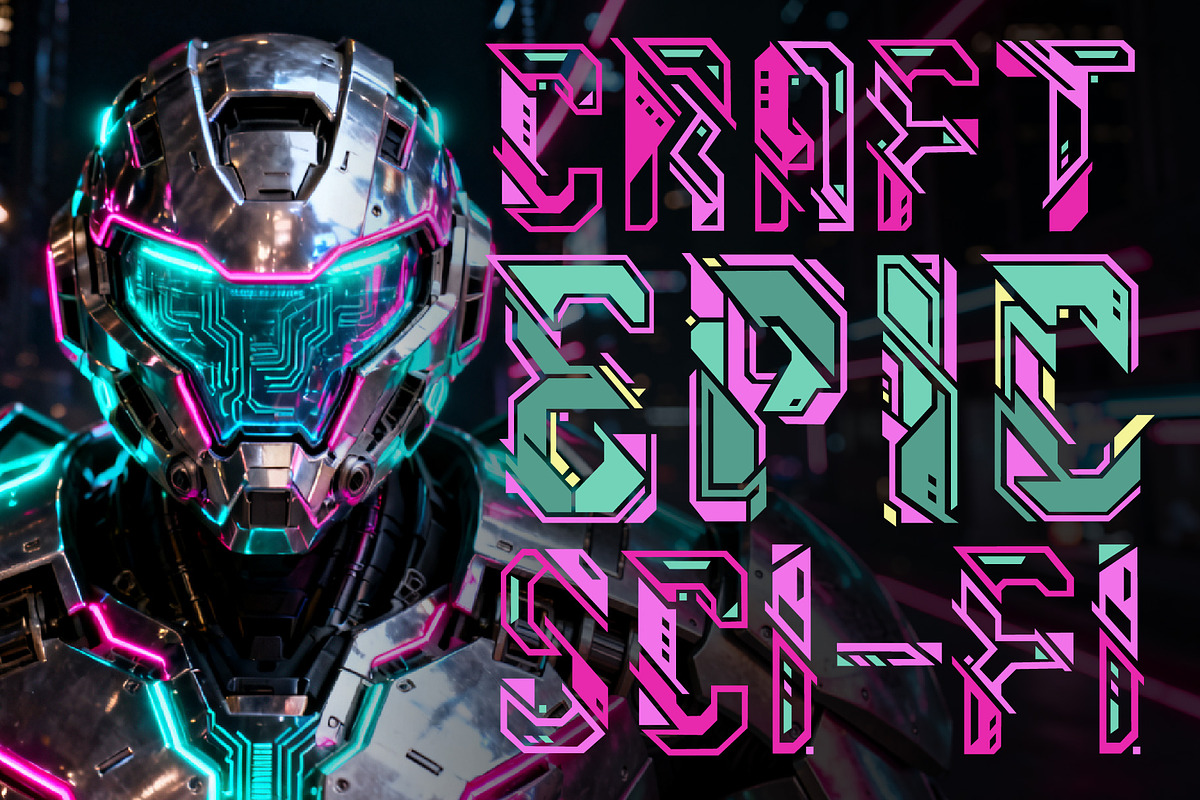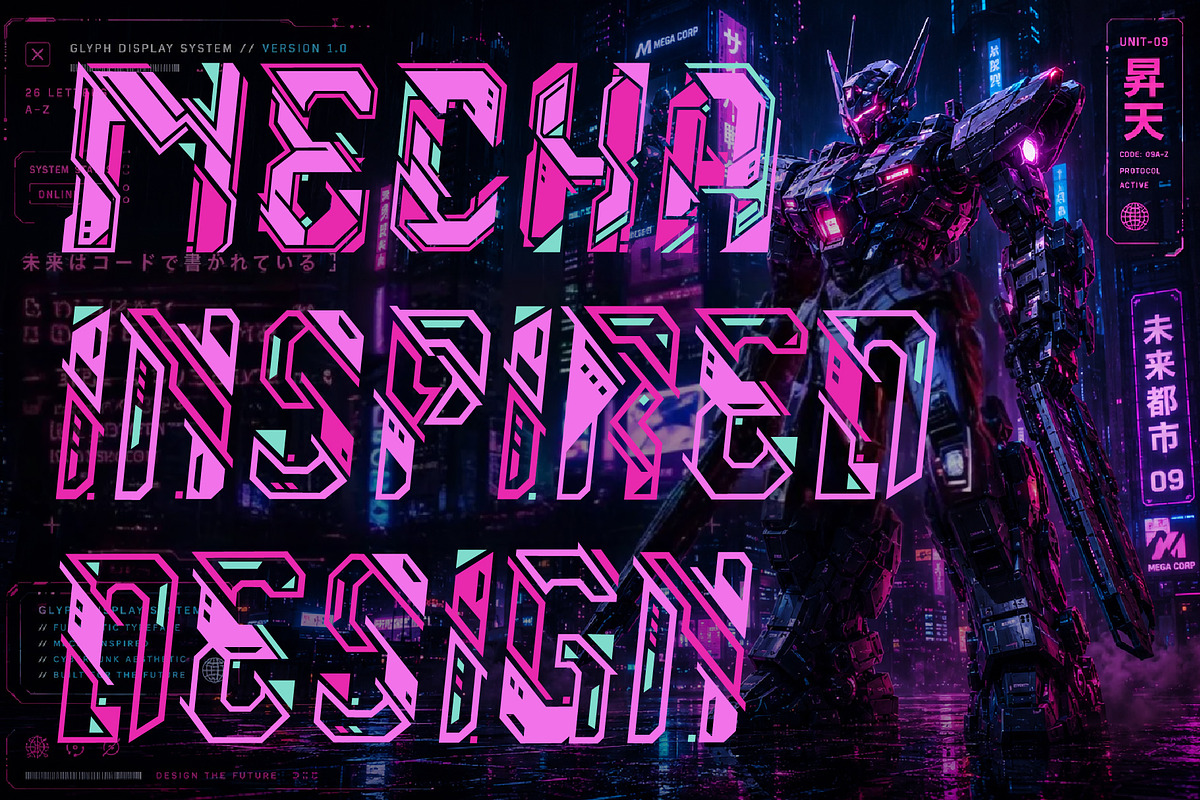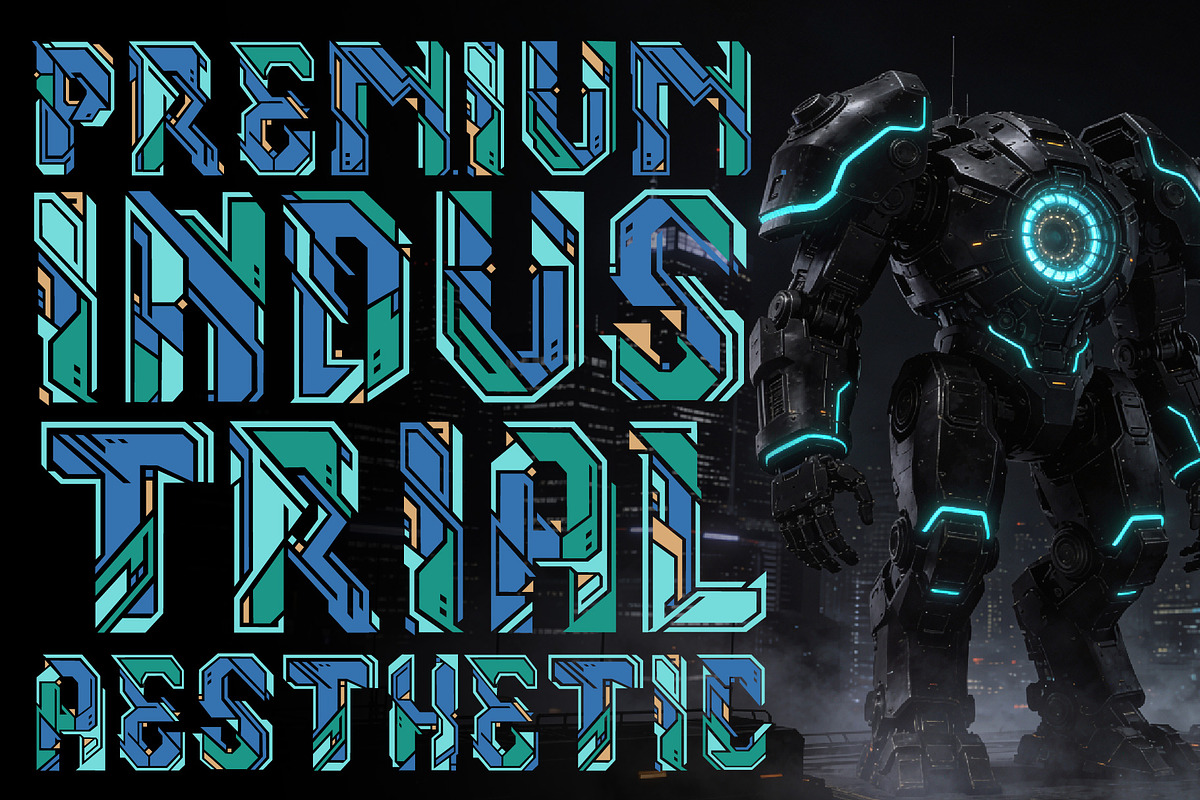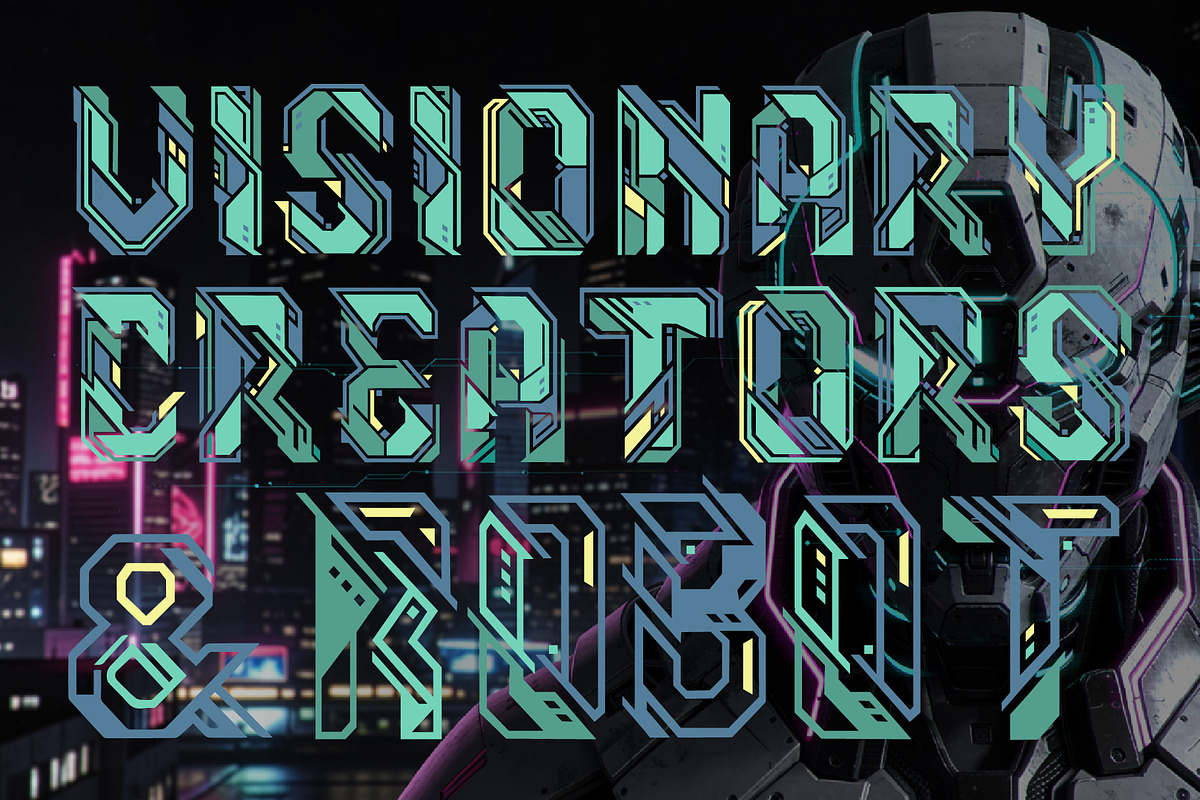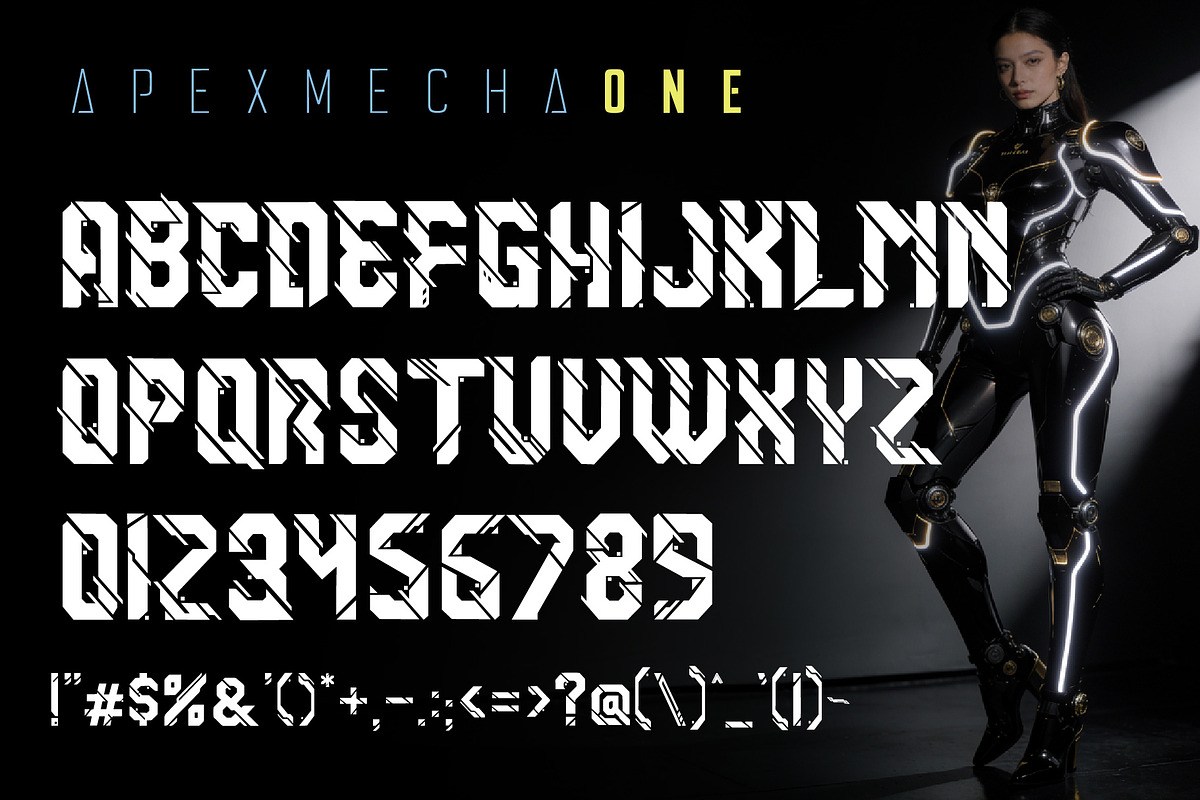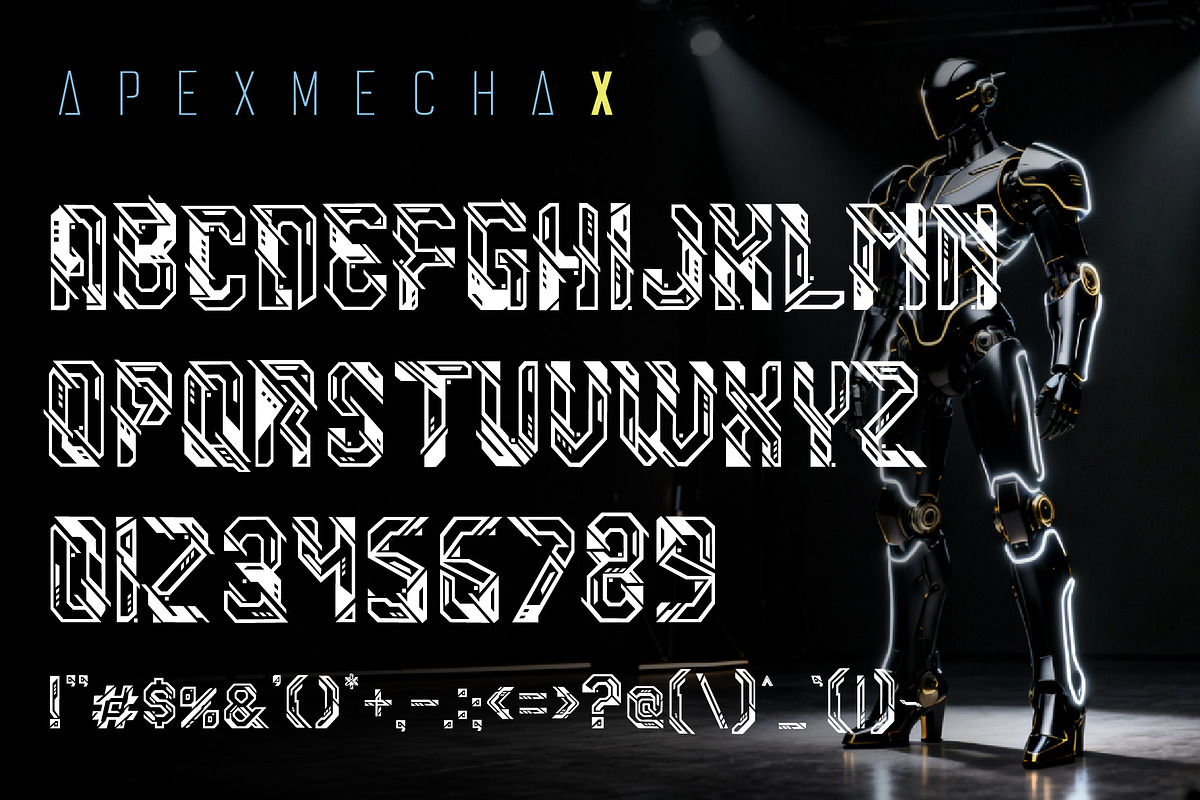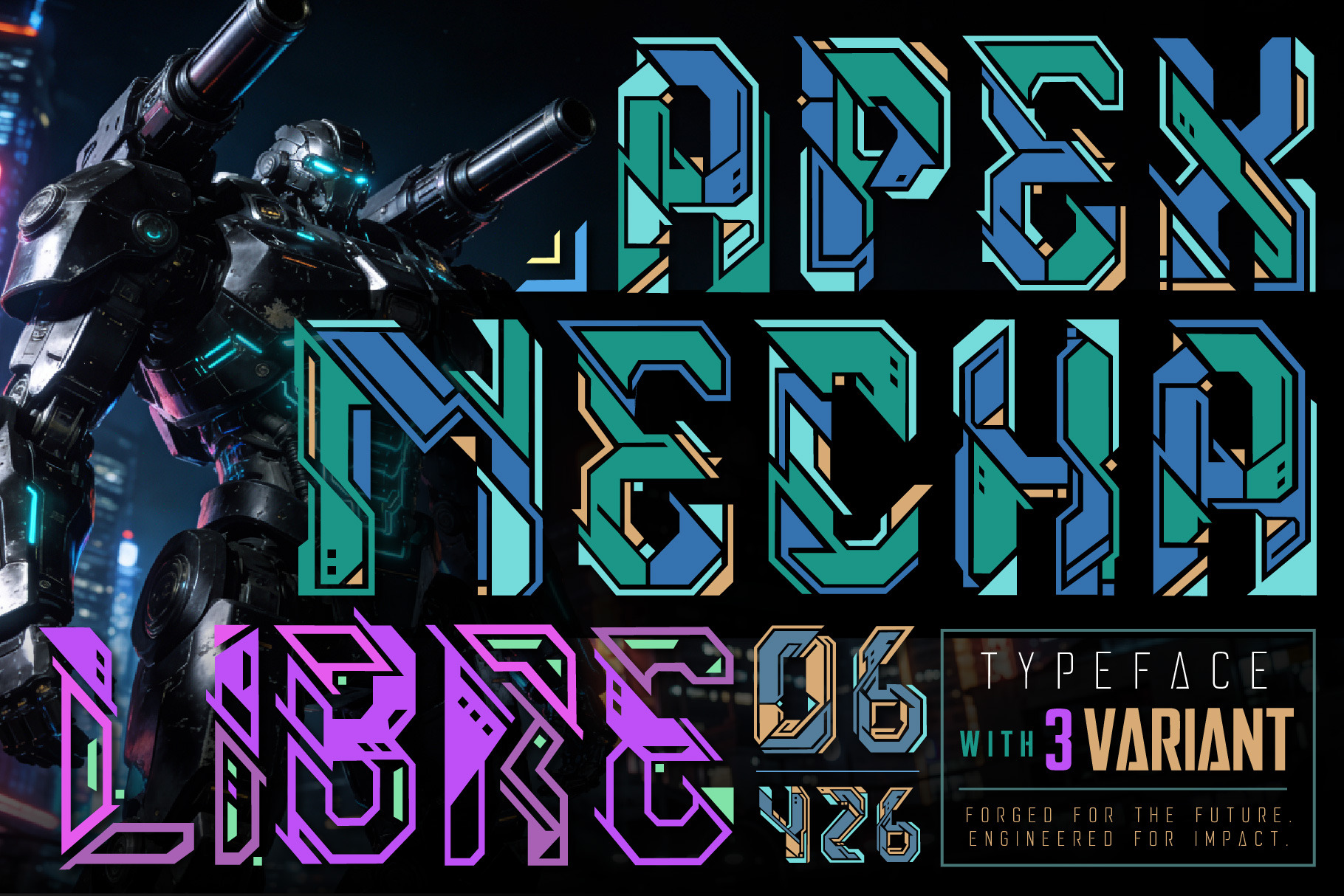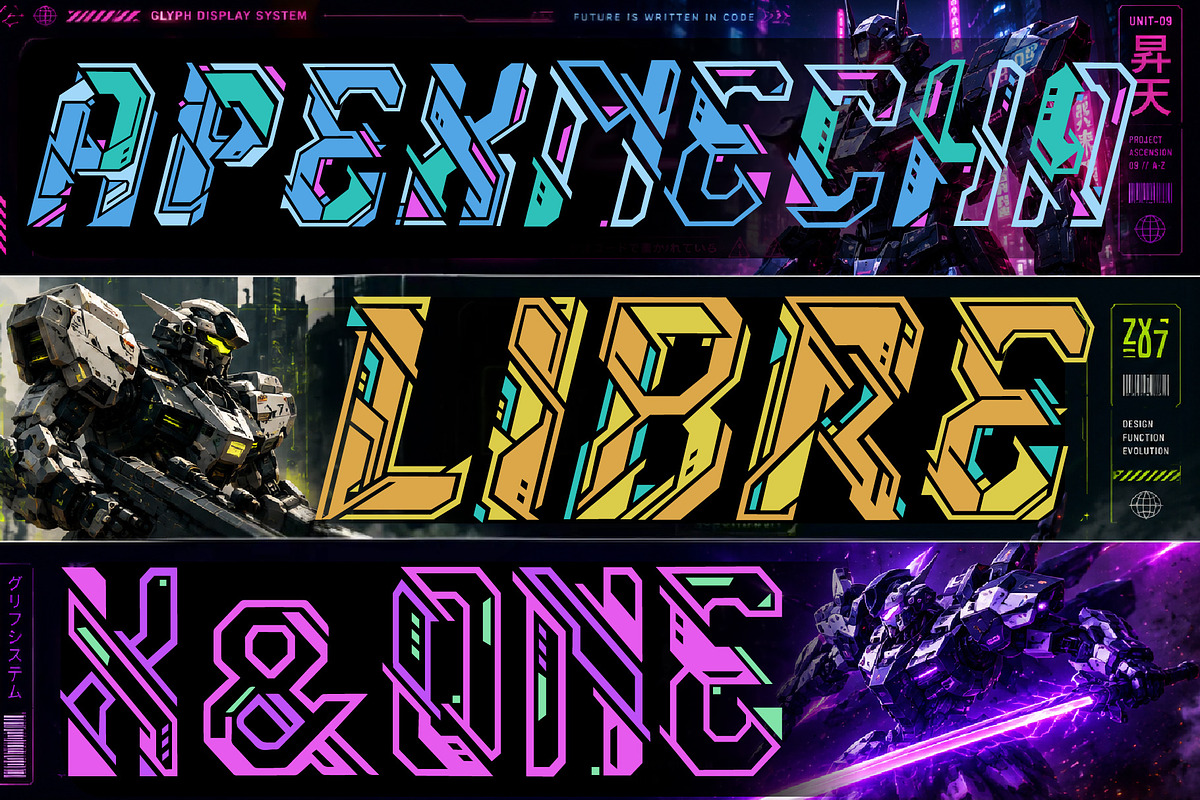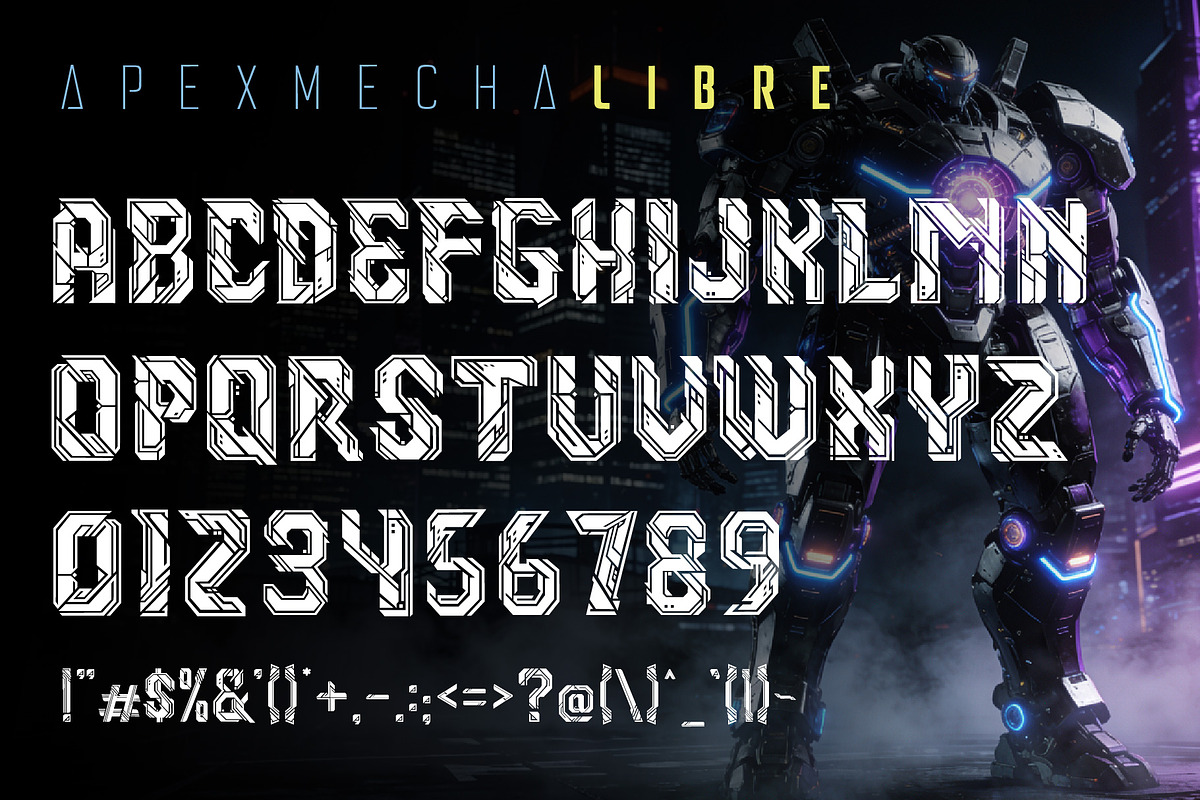
APEX MECHA – Mecha Robotic Typeface
APEX MECHA is a premium futuristic typeface family inspired by advanced mecha engineering, sci-fi interfaces, and cyber-industrial aesthetics. Designed for creators who want to build bold and immersive visual experiences, the family includes three distinctive styles: APEX MECHA ONE, APEX MECHA X, and APEX MECHA LIBRE. Each style offers a unique personality while maintaining a cohesive futuristic DNA, making it ideal for branding, gaming, posters, apparel, motion graphics, and next-generation digital experiences.
Features: • Futuristic Mecha Inspired Design • Premium Industrial Aesthetic • Bold Display Character Set • Distinctive Alternate Styles